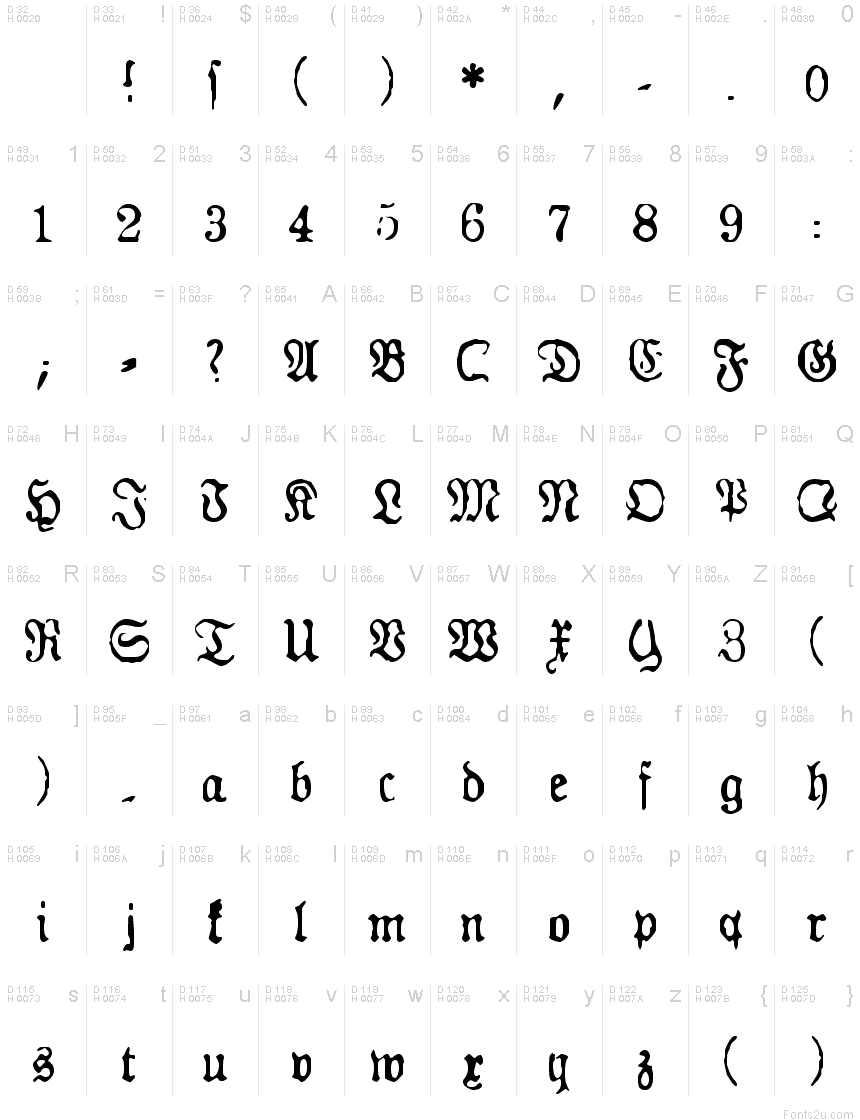
GF Gesetz
GF Gesetz font by Lorenz Goldnagl is a free medieval gothic typeface that feels like it’s been pulled straight from a crumbling law tome or church inscription. Thick, inky strokes twist into dense, knotted forms, while the tight curves and hooked detailing give every word a ceremonial, almost arcane weight on the page. It’s dramatic, dark, and instantly sets a historical or fantasy tone.
Using GF Gesetz, you can brand a craft beer, design a fantasy novel cover, build RPG titles, create festival posters, or dress up menus for themed bars and events. This free font shines at large sizes where its ornate shapes can breathe; pair it with a plain, modern sans serif for body text to keep layouts readable and grounded.